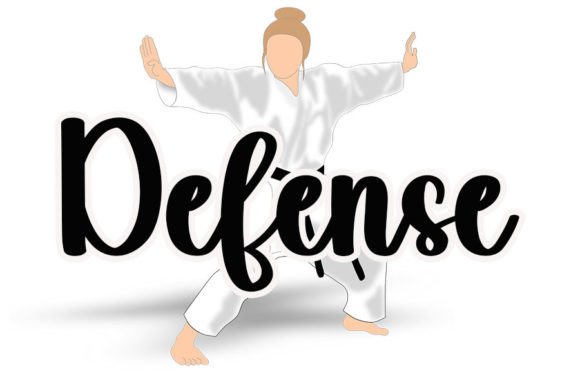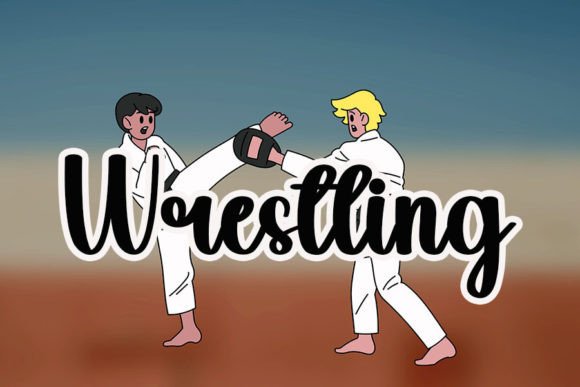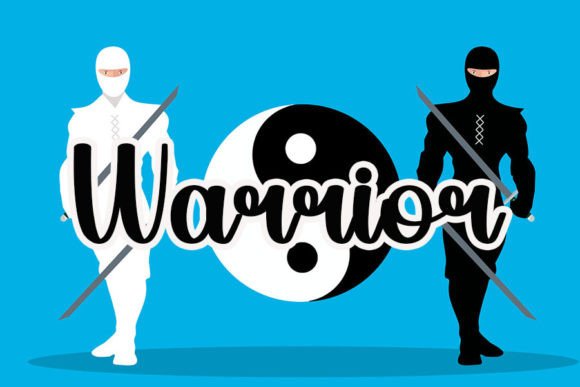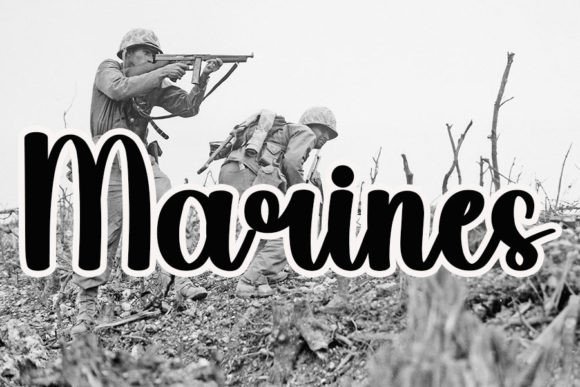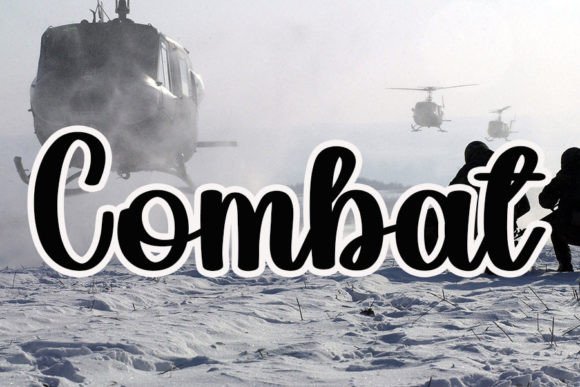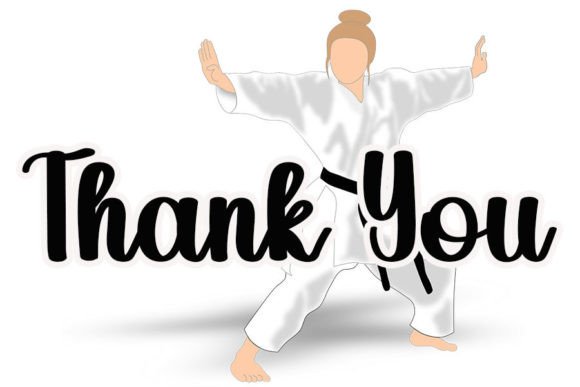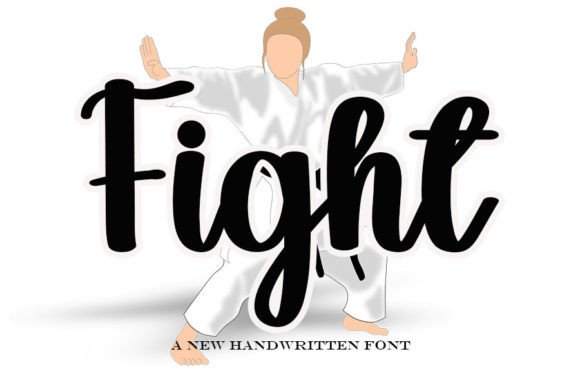
Discover the Elegance of Fight Font: Elevate Your Designs with a Timeless Handwritten Style
Are you on the hunt for a font that adds a touch of elegance and sophistication to your designs? Look no further than the Fight Font, a beautiful handwritten font that is sure to capture your heart. With its incredibly distinct and timeless style, Fight Font is the perfect choice for designers and crafters looking to create spectacular designs that stand out from the crowd.
The Characteristics of Fight Font
Fight Font is a neat and beautiful handwritten font that boasts an elegant touch, making it ideal for a wide range of projects. Its unique characteristics include:
- Elegant and Refined: Fight Font features a sophisticated and elegant style that is perfect for designs that require a touch of luxury and refinement.
- Handwritten with Love: This font is carefully crafted with a handwritten touch, giving it a personal and authentic feel that is sure to resonate with your audience.
- Distinct and Timeless: Fight Font’s incredibly distinct style ensures that your designs will stand out from the crowd, while its timeless quality guarantees that your creations will remain relevant for years to come.
Fight Font is a versatile font that can be used for a wide range of projects, including:
- Branding and Logo Design: Add a touch of elegance and sophistication to your brand identity with Fight Font.
- Wedding and Event Planning: Create beautiful wedding invitations, stationery, and event materials with this stunning font.
- Packaging and Product Design: Elevate your product packaging with Fight Font’s elegant and refined style.
- Digital and Print Media: Use Fight Font to create stunning digital and print materials, such as brochures, flyers, and social media graphics.
Why Choose Fight Font?
With so many fonts available, why choose Fight Font? Here are just a few reasons why designers and crafters love this beautiful handwritten font:
- Unique and Distinctive: Fight Font’s unique style ensures that your designs will stand out from the crowd.
- Elegant and Sophisticated: This font adds a touch of elegance and sophistication to any design.
- Easy to Read: Fight Font is clear and easy to read, making it perfect for body text and headlines.
- Highly Versatile: This font can be used for a wide range of projects, from branding and logo design to packaging and product design.
Tips for Using Fight Font
To get the most out of Fight Font, here are a few tips to keep in mind:
- Use it as a Headline Font: Fight Font is perfect for headlines and titles, where its elegant and refined style can really shine.
- Pair it with Other Fonts: Experiment with pairing Fight Font with other fonts to create a unique and visually appealing design.
- Adjust the Size and Color: Play around with different sizes and colors to find the perfect combination for your design.
If you’re looking for a font that adds a touch of elegance and sophistication to your designs, look no further than Fight Font. With its incredibly distinct and timeless style, this beautiful handwritten font is perfect for designers and crafters who want to create spectacular designs that stand out from the crowd. So why wait? Fall in love with Fight Font today and elevate your designs to new heights!